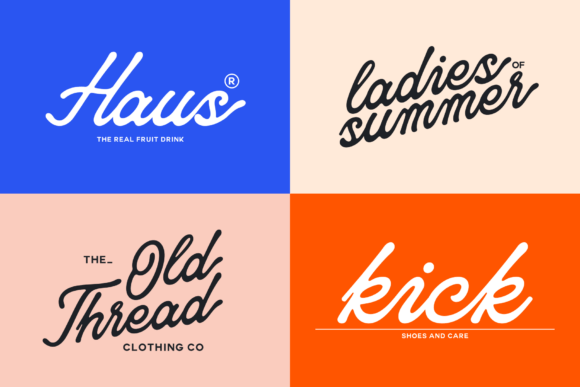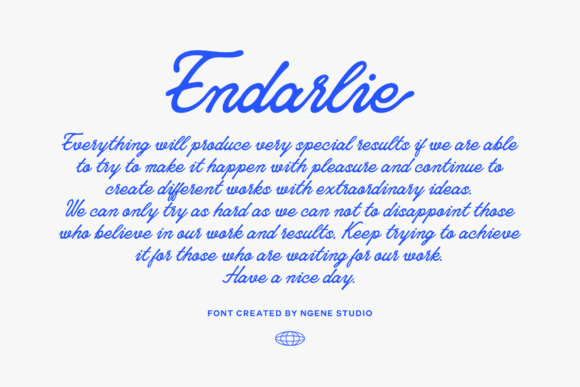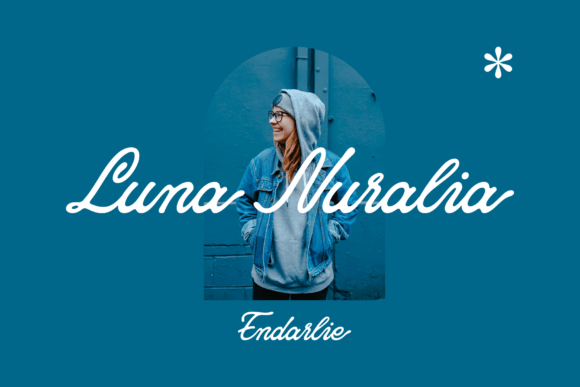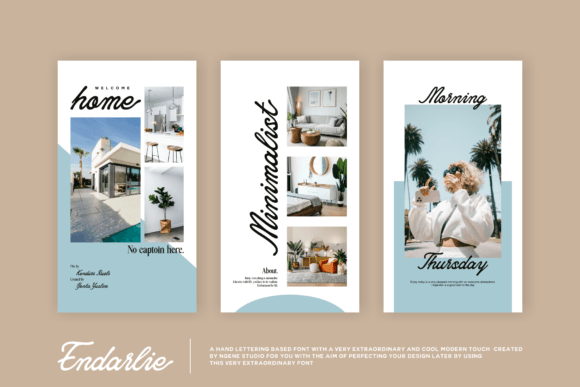
Introduction to Endarlie Font
Have you ever been stuck on a design project, struggling to find the perfect font to bring your creative vision to life? It’s a common problem many designers face, but what if I told you there’s a solution that can make your design process a breeze? Enter the Endarlie Font, a versatile and high-quality font that’s about to become your new go-to design resource.
With its unique blend of modern and vintage touches, the Endarlie Font is perfect for a wide range of creative projects, from logos and posters to invitation cards and packaging. Its transparent background and high-quality design make it a valuable asset for any designer looking to elevate their work.
Key Features of Endarlie Font
- Endarlie Font offers a transparent background, allowing for seamless integration into various design elements.
- Unique characteristics: Unique letterforms and subtle flair, making it perfect for adding a touch of elegance to creative projects.
Honest Review: Endarlie Font
I recently stumbled upon the Endarlie Font while searching for a new design resource for my creative project. As a designer, I was excited to explore this free download and see if it would live up to my expectations.
What works well: ✨ The Endarlie Font has a beautiful, elegant script that is perfect for adding a touch of sophistication to your design. The font is highly customizable, allowing you to adjust the size, color, and even the transparency of the background to fit your needs. This feature is particularly useful when creating designs with a transparent background.
However, I did encounter a few limitations: ⚠️ The font is not as versatile as I would have liked, and it may not be suitable for designs that require a bold, modern look. Additionally, some of the characters may not be supported in certain operating systems, which could cause compatibility issues.
Overall, I would recommend the Endarlie Font for designers who are looking for a high-quality, elegant script font for their creative projects. While it may not be the best fit for every design, it is definitely worth considering for projects that require a touch of sophistication.
- High-quality, elegant script font
- Customizable size, color, and transparency
Tips for Getting the Most Out of the Endarlie Font
Here are a few tips for getting the most out of the Endarlie Font:
- Experiment with different font sizes and styles to find the perfect look for your design.
- Use the font in combination with other design elements, such as images and graphics, to create a visually appealing design.
- Take advantage of the font’s transparent background to create a sense of depth and dimension in your designs.
The Endarlie Font is perfect for a variety of creative projects, including:
- Social media graphics and posts.
- Presentations and documents.
- Posters and brochures.
- Business cards and other marketing materials.